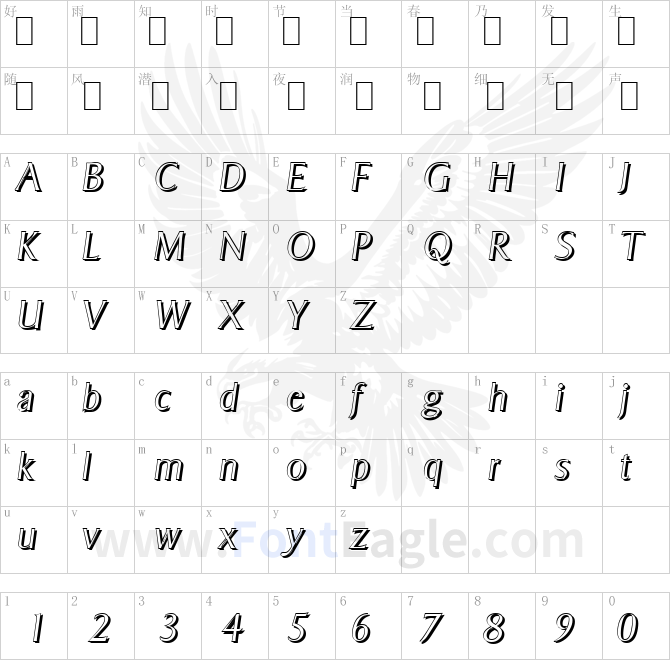
- Font name:BruceBeckerShadow-Xlight
- Font Subfamily ID:Alts:BruceBeckerShadow-Xlight-Italic
- Font Full Name:BruceBeckerShadow-Xlight-Italic
- Postscript:BruceBeckerShadow-Xlight-Italic